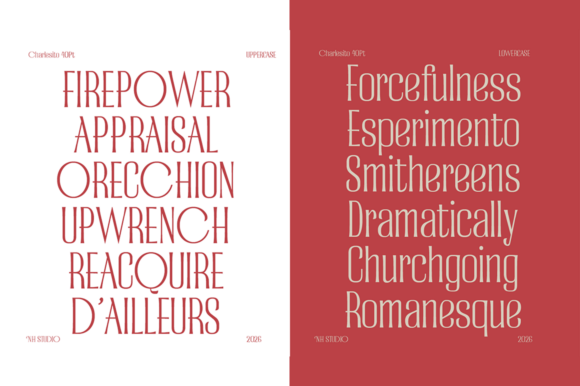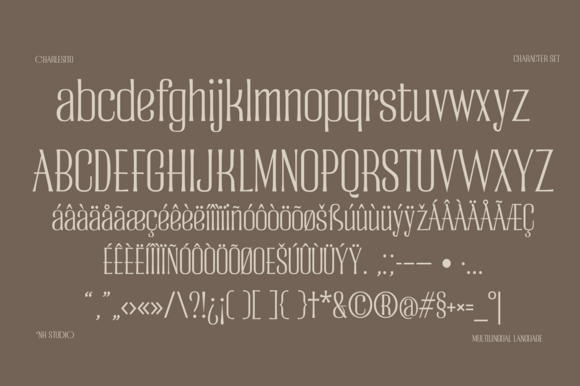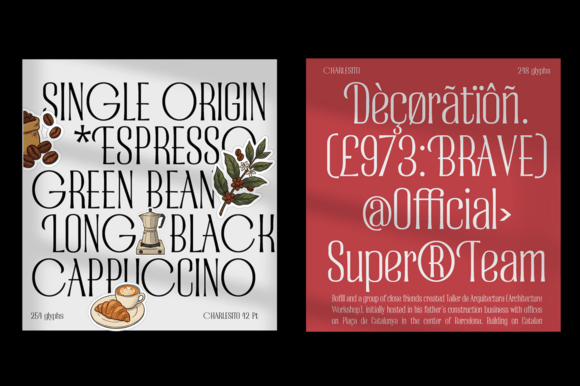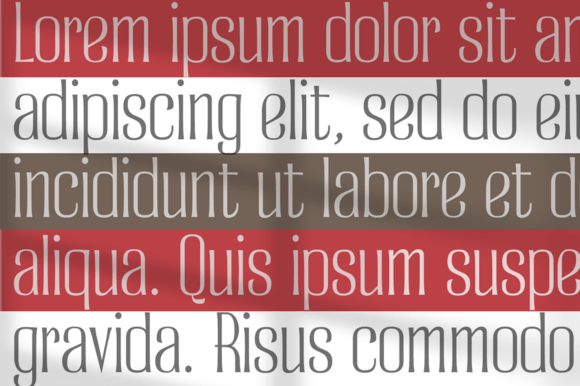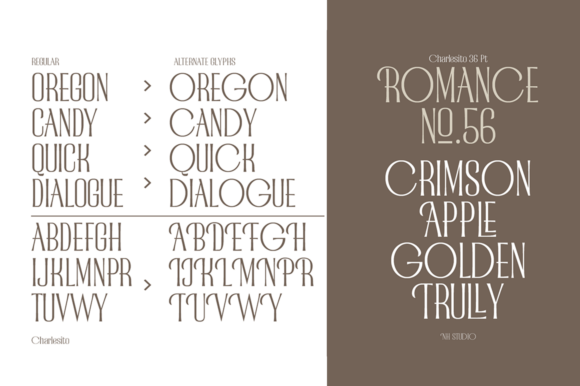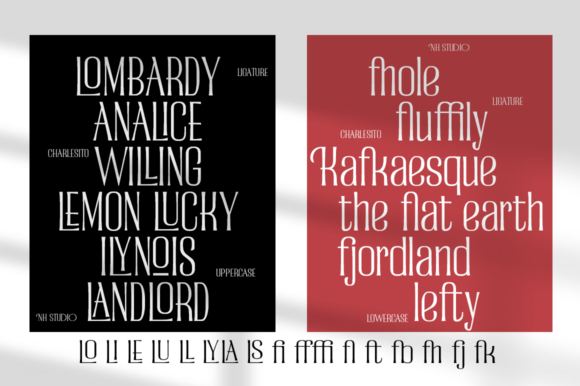
Introducing Charlesito Font: Elevate Your Designs with Modern Style
In the world of typography, a good font can make all the difference in elevating the quality of your designs. If you’re a designer, craftsperson, or simply someone who appreciates beautiful typography, you’re in luck. Charlesito Font is here to revolutionize your design game with its modern and stylish sans serif aesthetic.
What is Charlesito Font?
Charlesito is a modern and stylish sans serif font that has taken the design world by storm. Its sleek and contemporary design makes it the perfect choice for a wide range of projects, from cosmetics and beauty brands to logos, wordmarks, magazines, designs, books, publications, branding, and more.
Key Features of Charlesito Font
So, what sets Charlesito apart from other fonts on the market? Here are just a few of its key features:
- Modern Design: Charlesito boasts a modern and stylish sans serif design that is sure to turn heads.
- Ligature Features: This font includes ligature features that add an extra touch of sophistication to your designs.
- Versatility: Charlesito is incredibly versatile and can be used for a wide range of projects, from branding and logos to magazines and publications.
Why Choose Charlesito Font?
With so many fonts on the market, why choose Charlesito? Here are just a few reasons why designers and craftspersons are falling in love with this font:
- Elegance: Charlesito exudes elegance and sophistication, making it perfect for high-end brands and designs.
- Readability: This font is highly readable, even at small sizes, making it perfect for body text and captions.
- Uniqueness: Charlesito’s modern design and ligature features set it apart from other sans serif fonts on the market.
Charlesito Font is the perfect choice for a wide range of projects, including:
- Cosmetics and Beauty Brands: Elevate your brand with a modern and stylish font that exudes elegance and sophistication.
- Logos and Wordmarks: Create a lasting impression with a custom logo or wordmark that showcases your brand’s personality.
- Magazines and Publications: Add a touch of class to your publications with a font that is both readable and stylish.
- Branding and Identity: Establish a strong brand identity with a font that reflects your values and aesthetic.
- Business Cards and Social Media: Make a lasting impression with business cards and social media graphics that showcase your brand’s personality.
Elevate the Quality of Your Designs
In today’s competitive design landscape, it’s more important than ever to stand out from the crowd. With Charlesito Font, you can elevate the quality of your designs and take your brand to the next level. Whether you’re a seasoned designer or just starting out, this font is sure to inspire and elevate your work.
| Font Name | Charlesito Font |
| Author | NH Studio |
In conclusion, Charlesito Font is a game-changer for designers and craftspersons looking to elevate the quality of their designs. With its modern and stylish sans serif aesthetic, ligature features, and versatility, this font is sure to become a favorite in your design arsenal. So why wait? Try Charlesito Font today and take your designs to new heights!